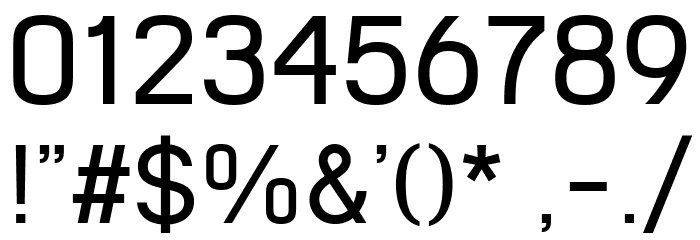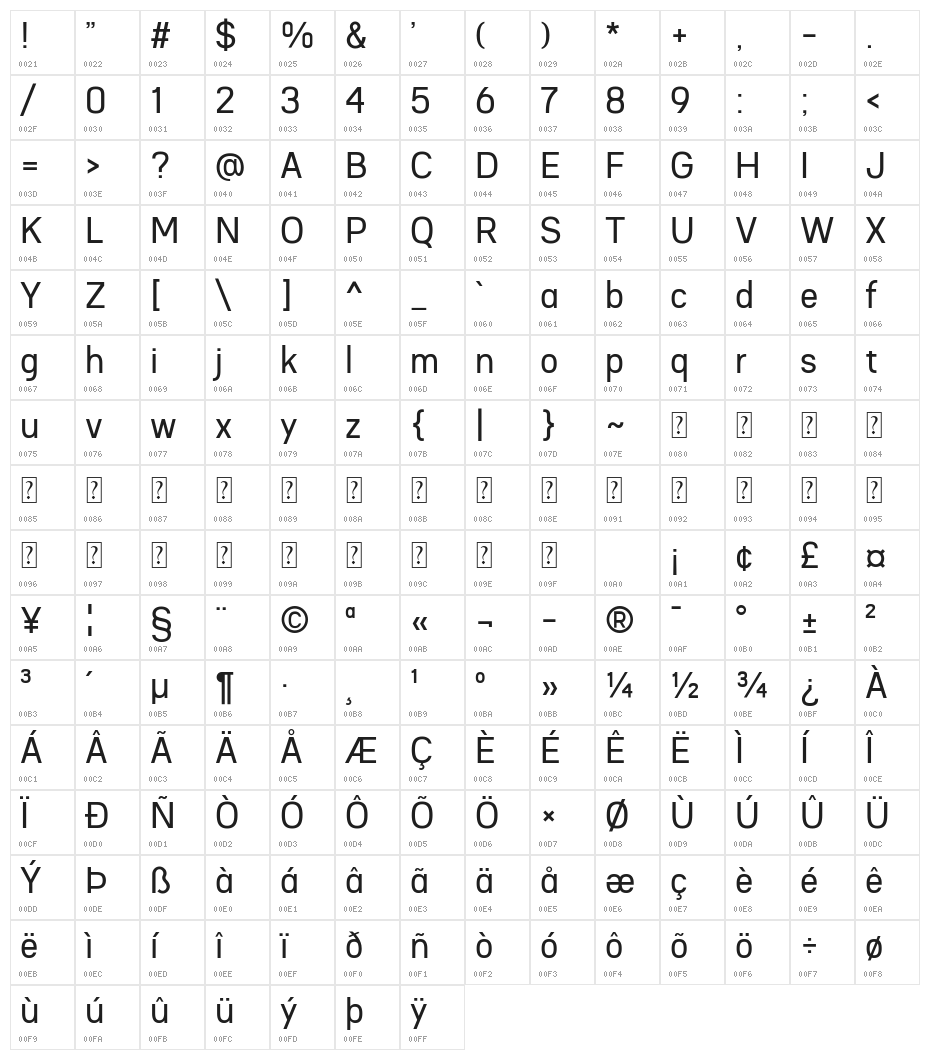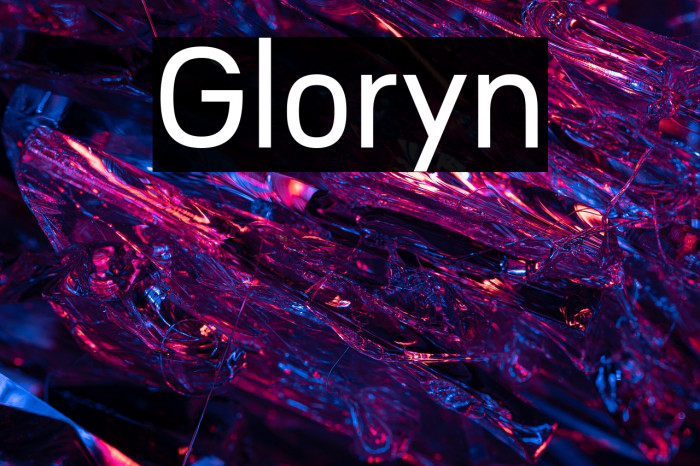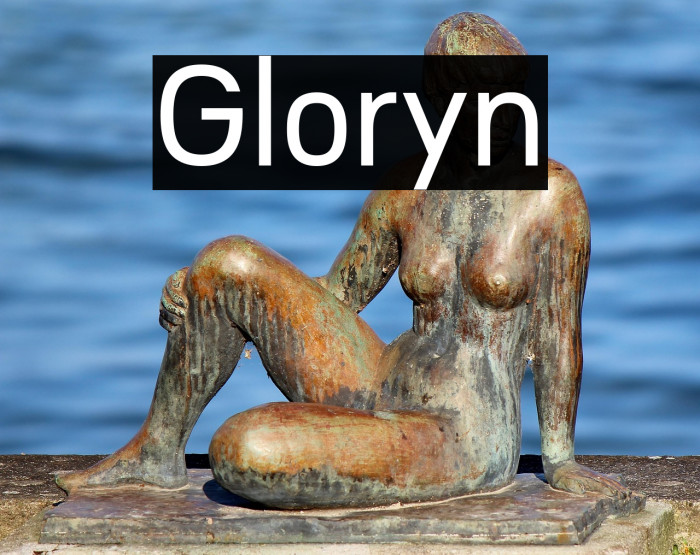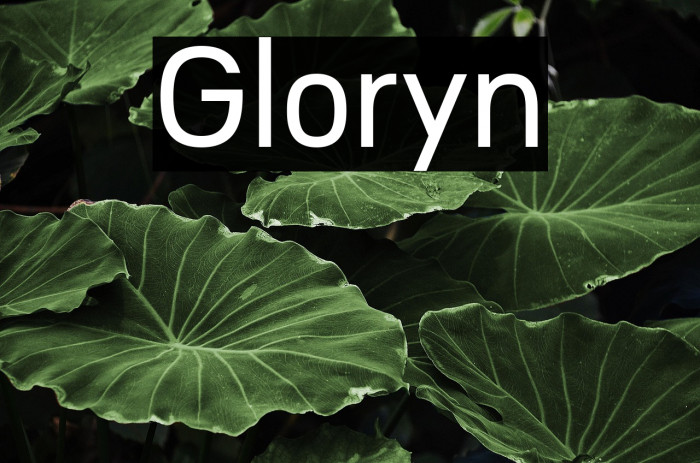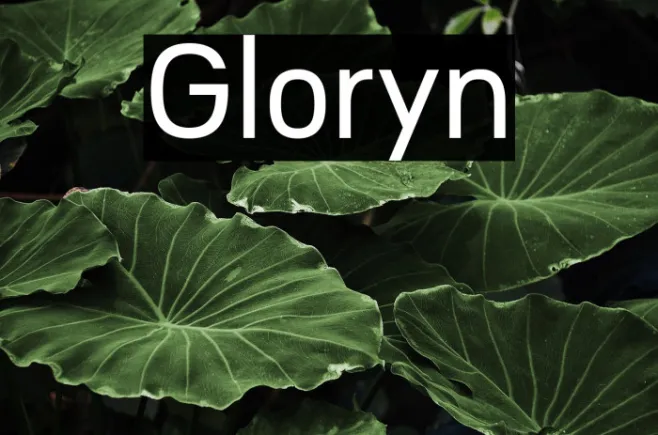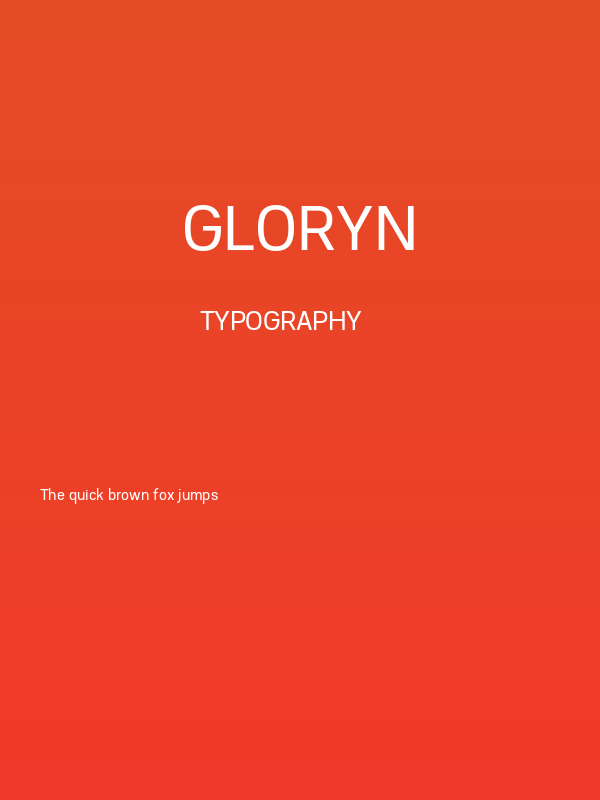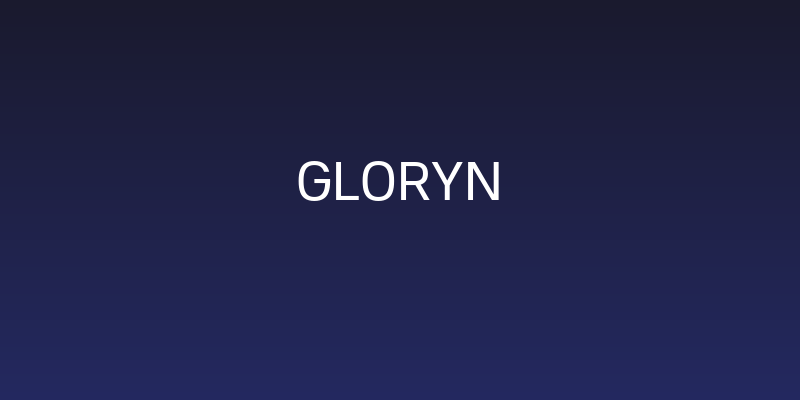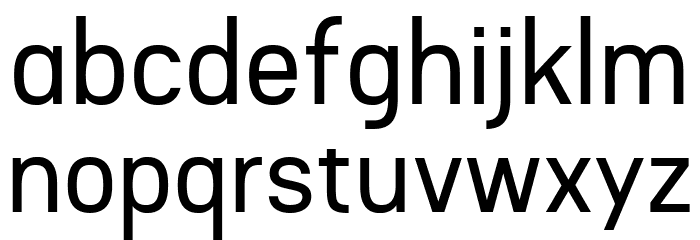
Gloryn Font
Gloryn Description
This font exhibits a clean and modern sans-serif style, characterized by its uniform stroke width and geometric shapes. The uppercase letters are bold and assertive, while the lowercase letters maintain a consistent and harmonious appearance. The numerals are straightforward and easy to read, making them suitable for various applications. Special characters are well-defined, adding to the font's versatility. The overall design is minimalist, focusing on clarity and readability, making it ideal for both digital and print media.
| Proposed Projects | Ideal for branding, web design, advertising, and editorial layouts due to its clarity and modern appeal. |